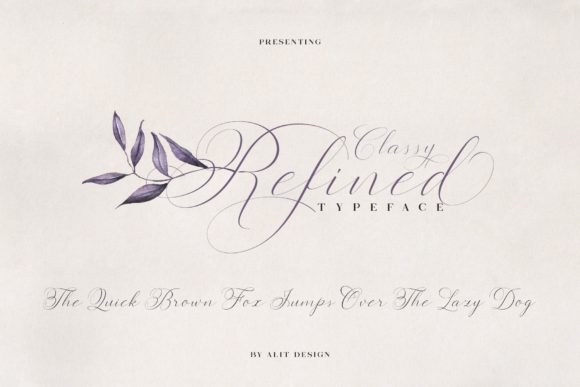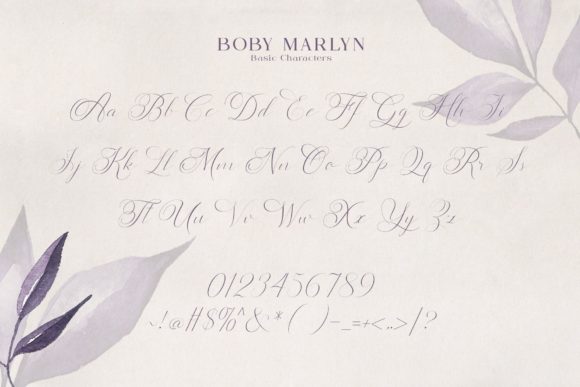
Boby Marlyn Font
db-ku.com - Script & Handwritten -- Boby Marlyn is a delicate and stylish script font. It looks stunning on wedding invitations, thank you cards, quotes, greeting cards, logos, business cards and every other design which needs a handwritten touch.